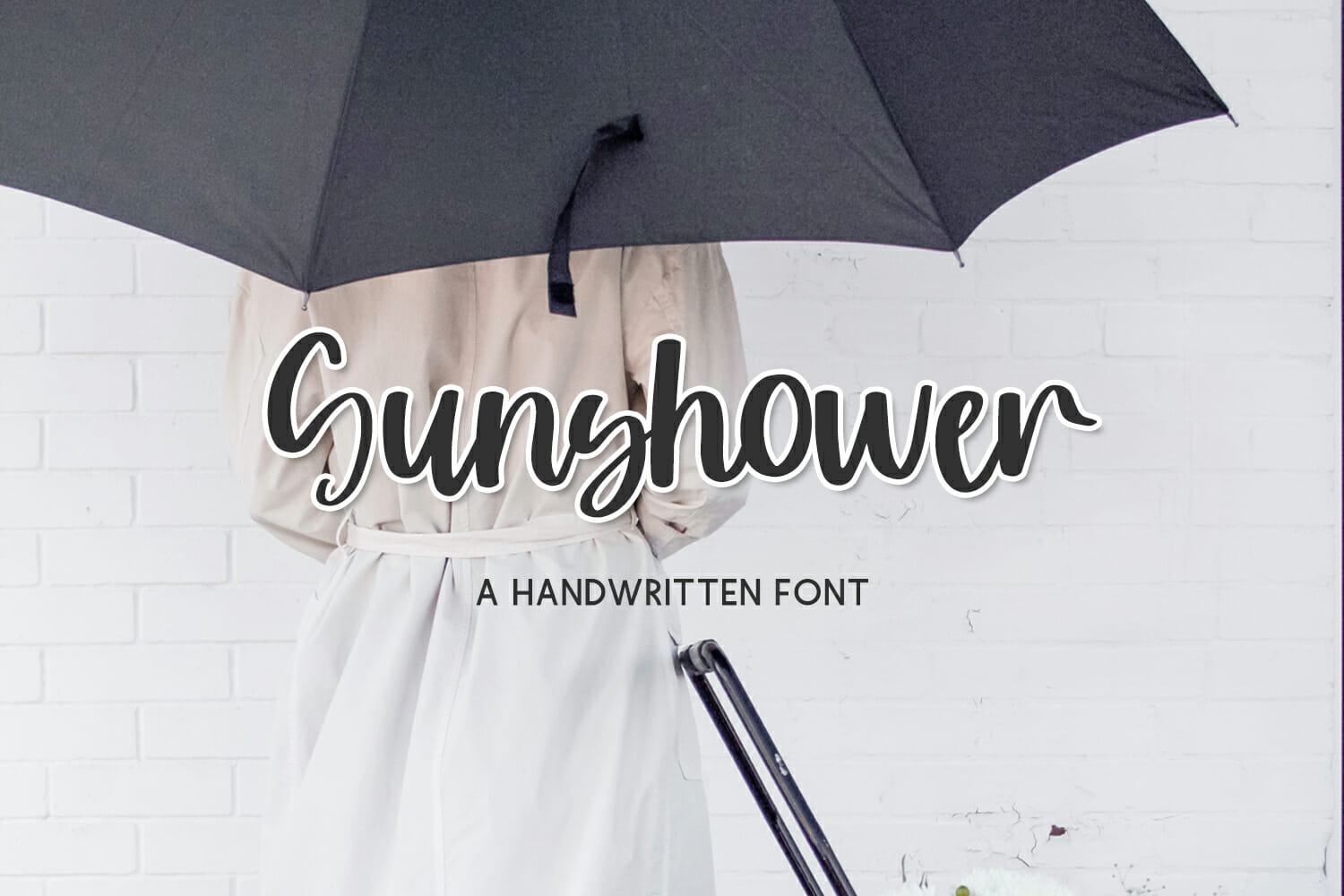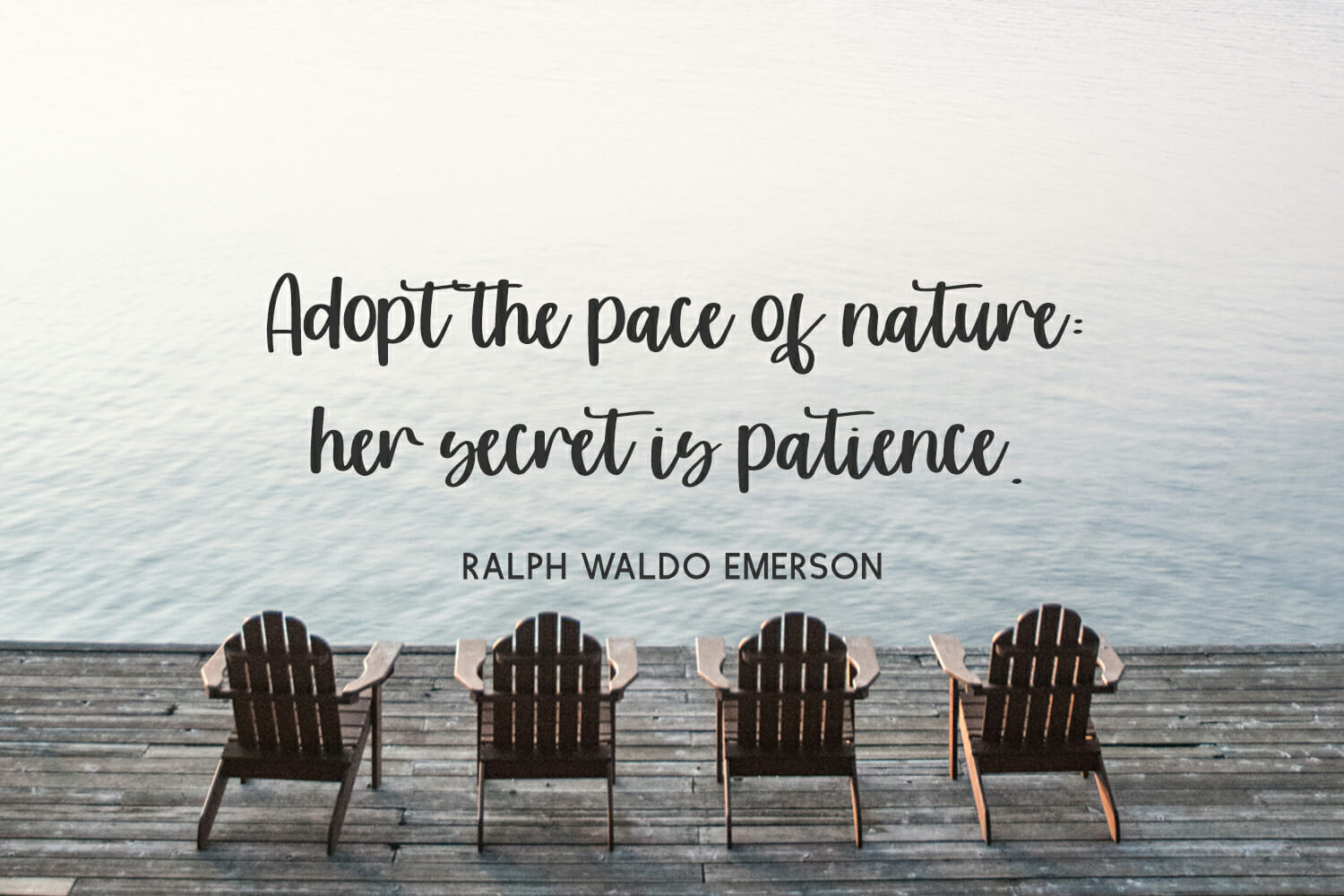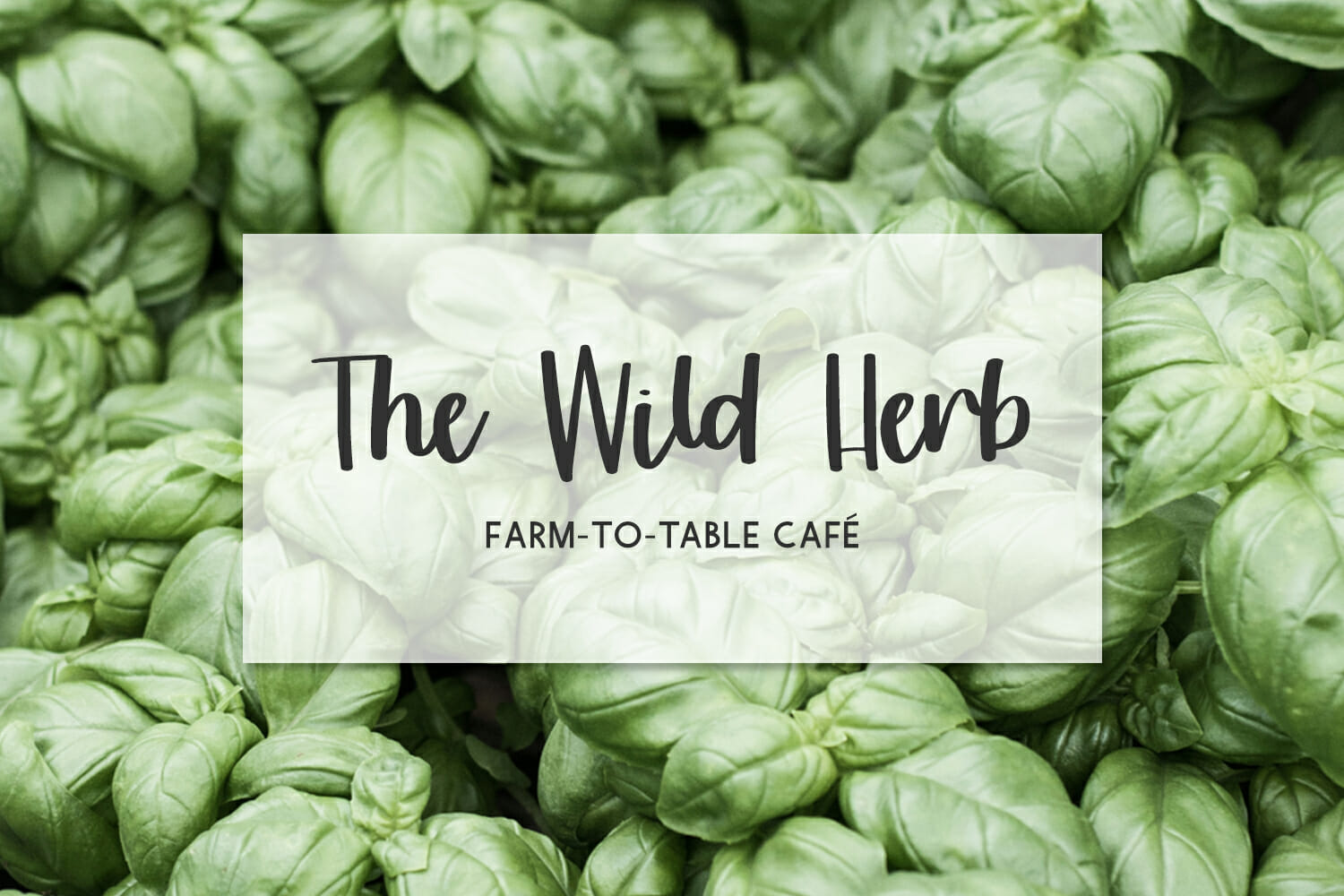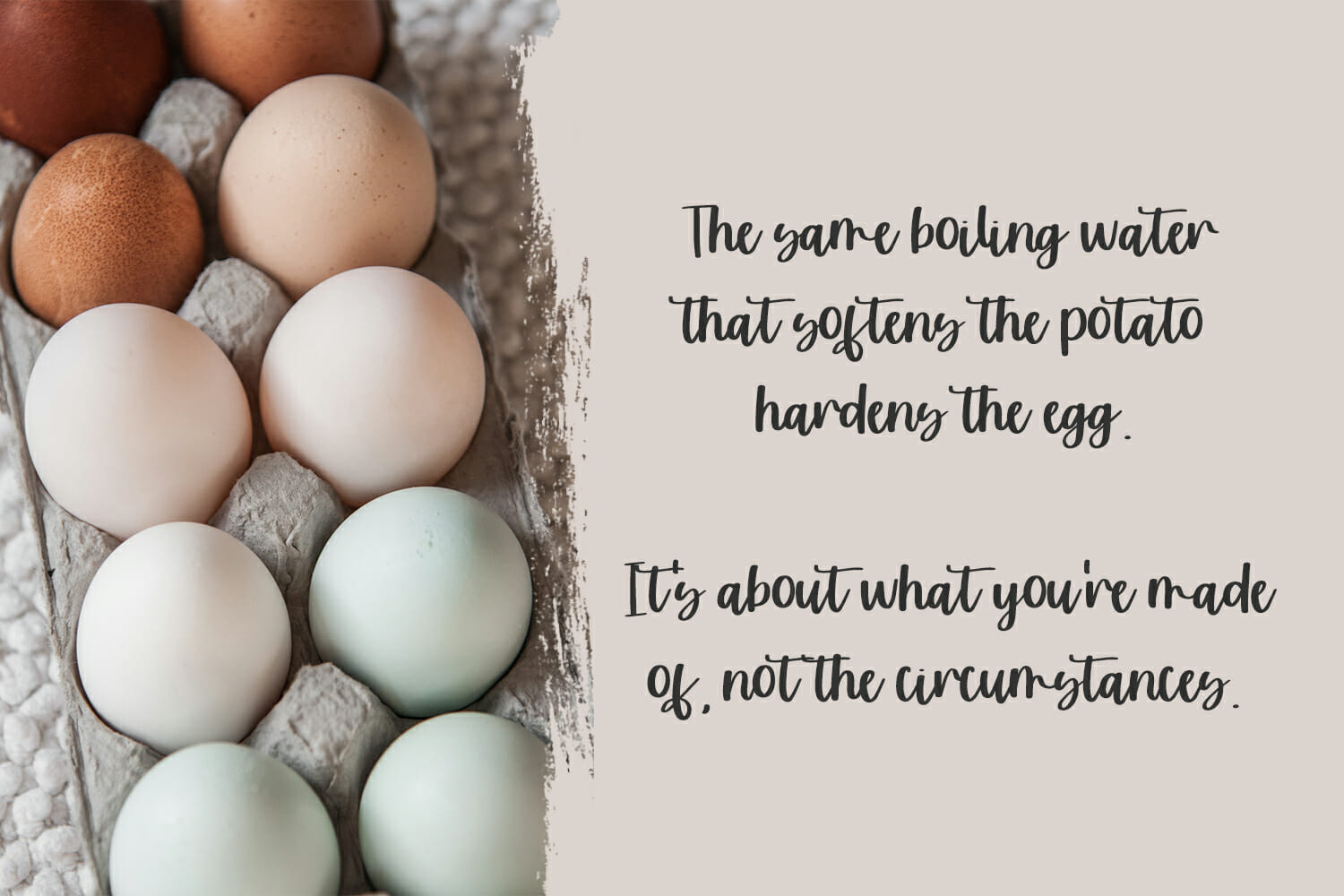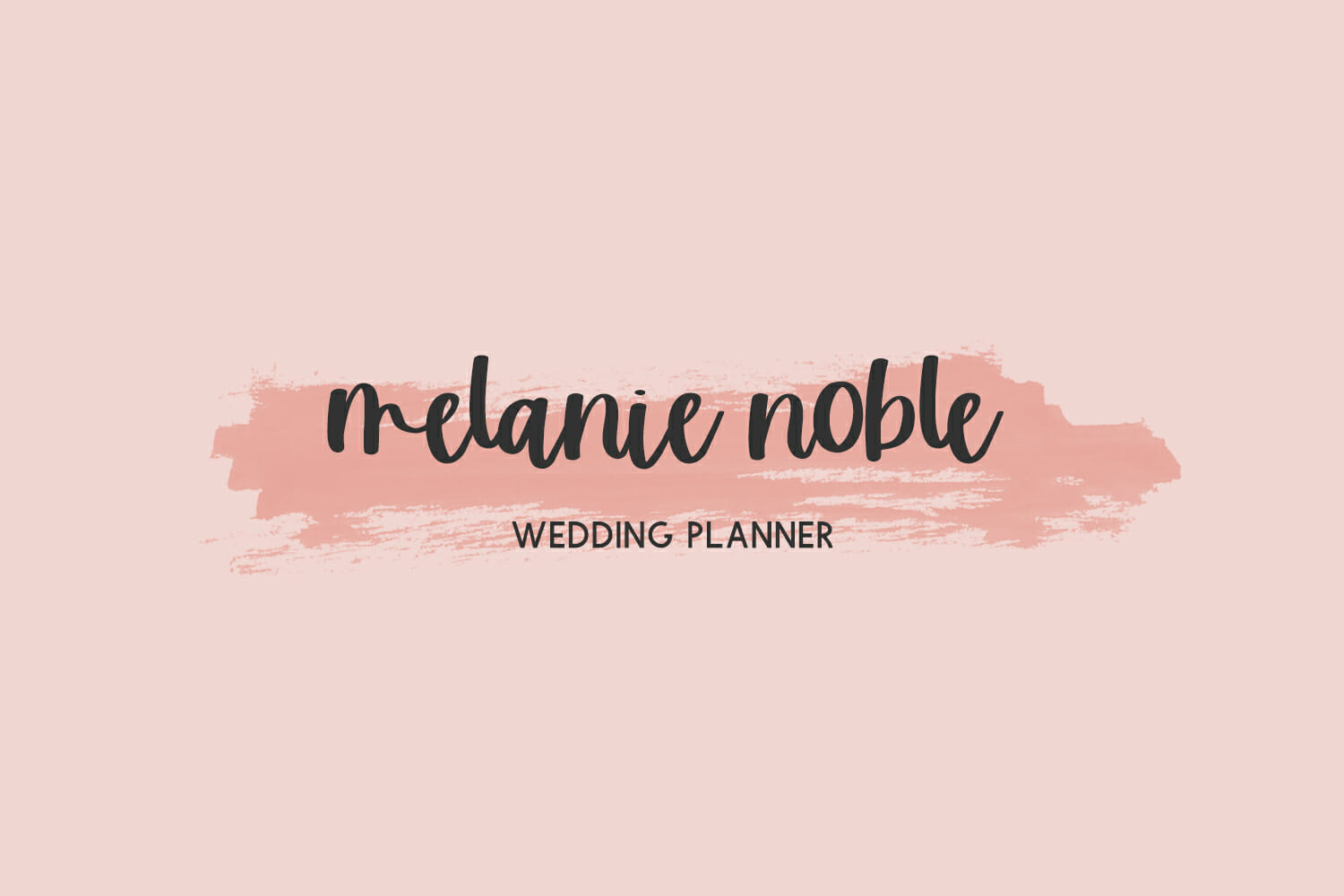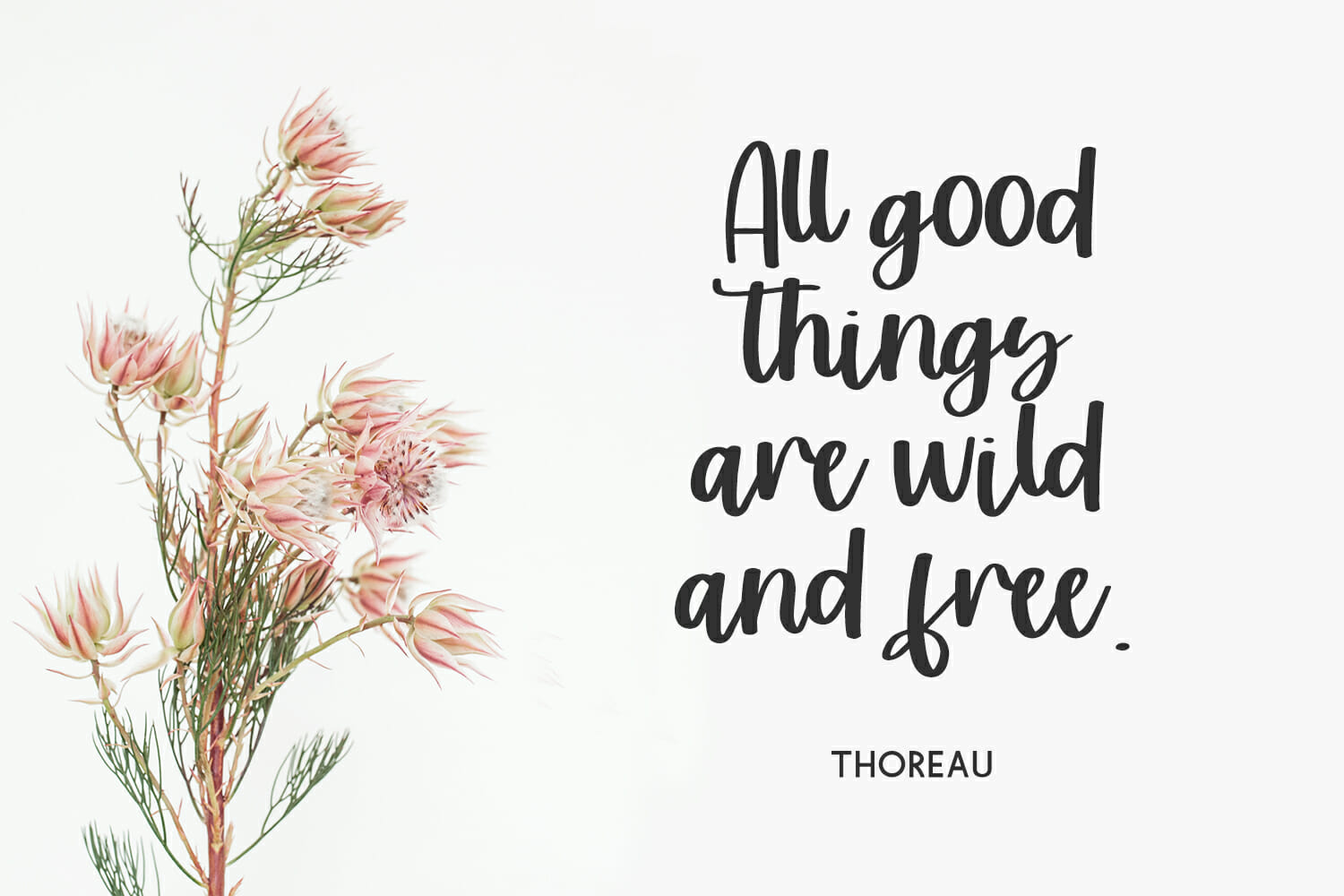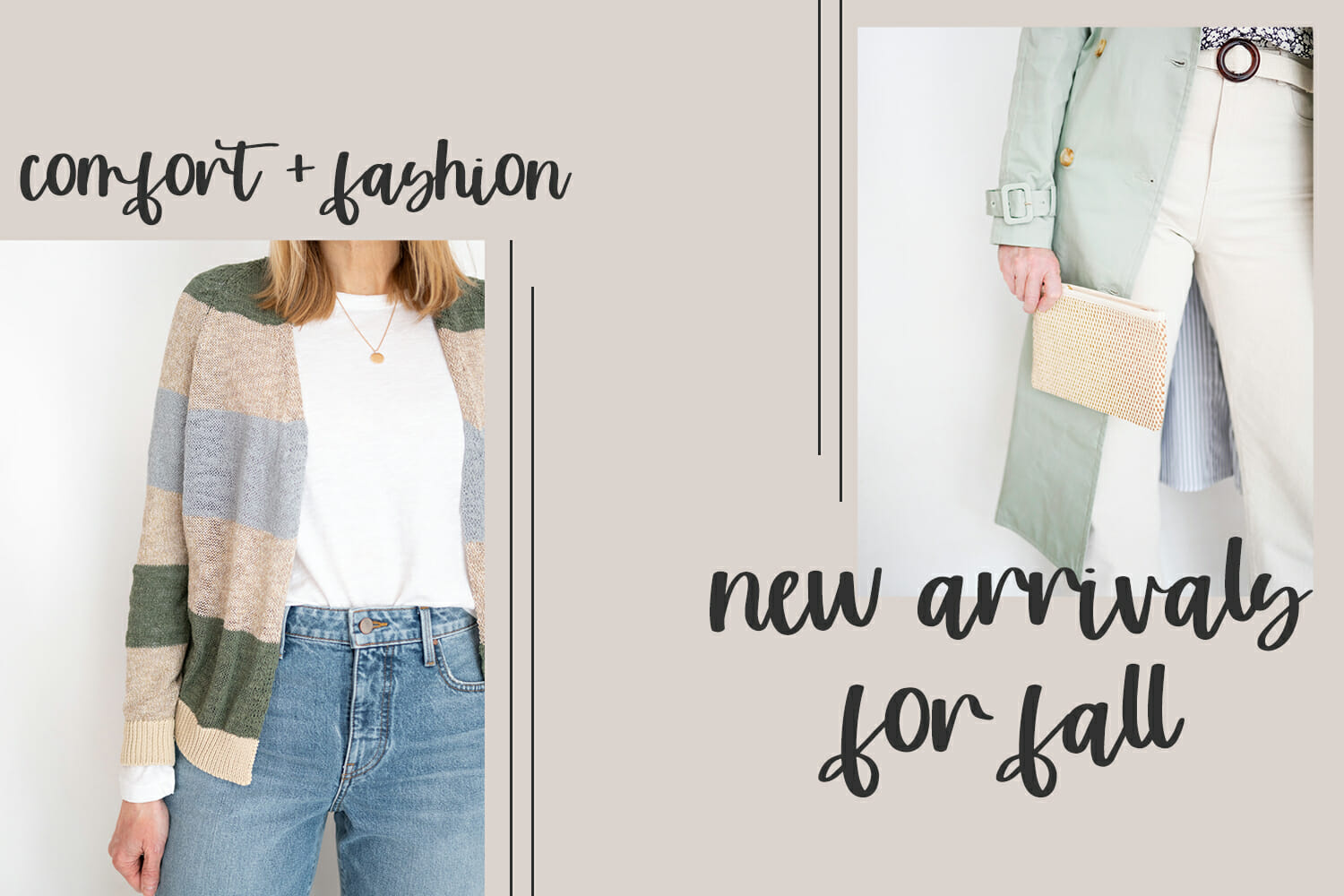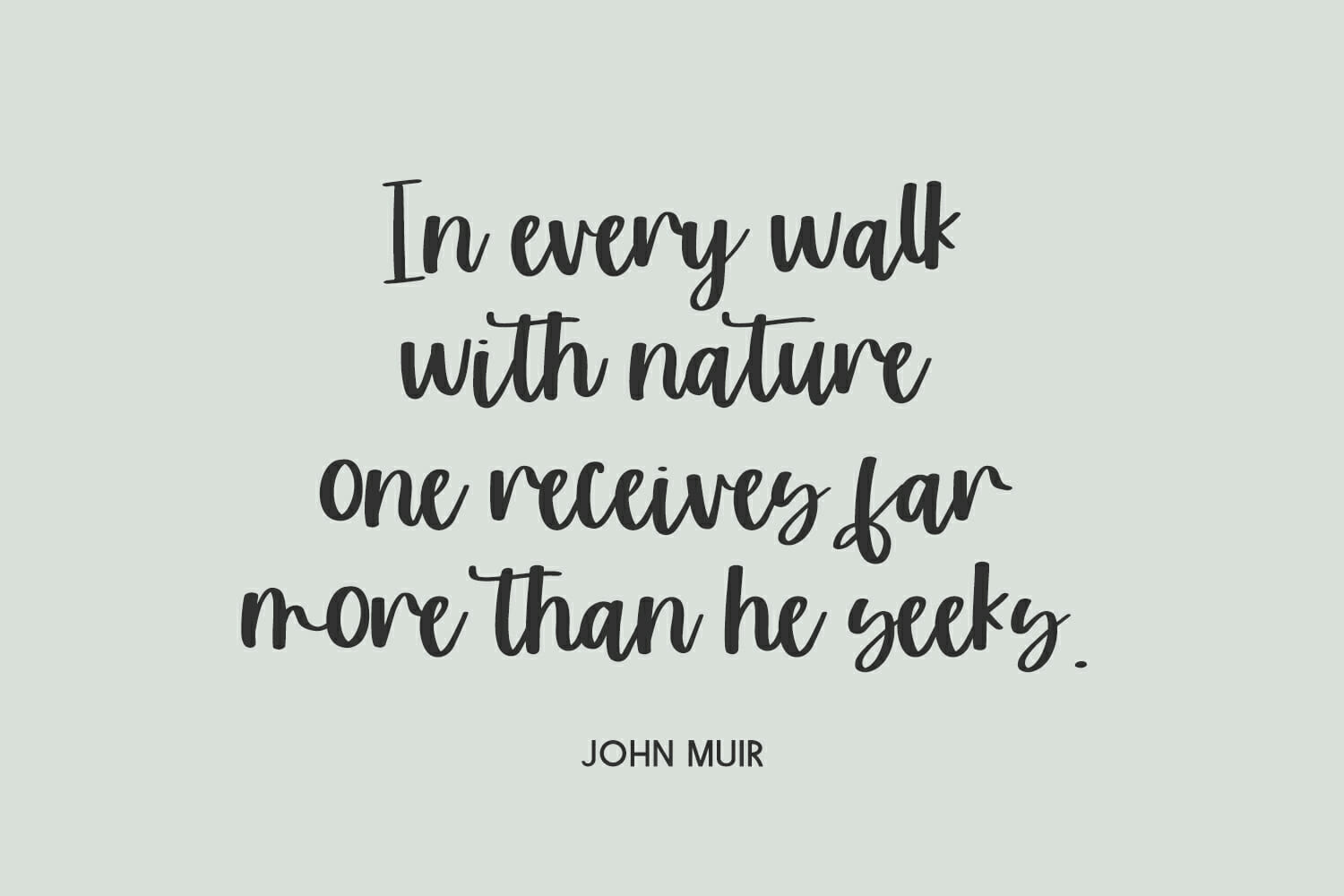
Sunshower Script
Introducing Sunshower Script, a handlettered calligraphy script with the slightest bit of bounce.
Sunshower Script is best for:
– logos + branding for feminine or kid-centric brands
– header elements that need a cute handwritten touch
– quote graphics for social media
– crafting with Cricut or Silhouette machines, since it has a super smooth edge for cutting vinyl!